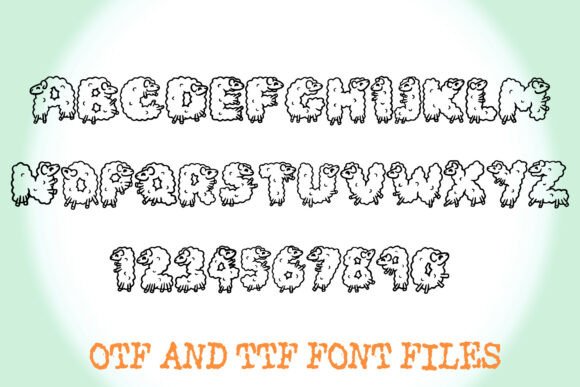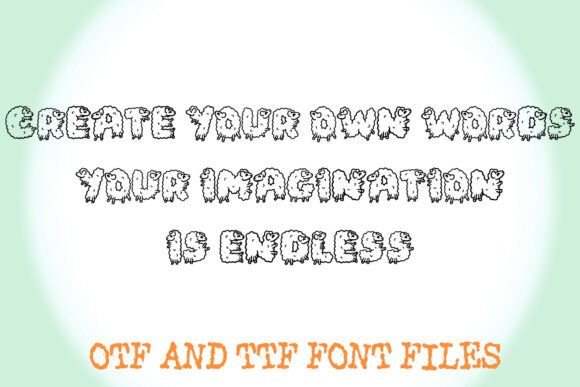
Introducing Fluffy Sheep Font: The Ultimate Delight for Designers and Crafters
Are you looking for a font that can add a touch of whimsy and playfulness to your designs? Look no further than the Fluffy Sheep Font! This delightfully imaginative display font is crafted from charming, cartoon-style sheep, making it perfect for a variety of creative projects. In this article, we’ll dive into the features and benefits of Fluffy Sheep Font, and explore how it can elevate your designs.
The Inspiration Behind Fluffy Sheep Font
The Fluffy Sheep Font is designed to bring a sense of joy and wonder to your designs. Each letter is carefully crafted from adorable, cartoon-style sheep, creating a playful and whimsical feel that’s sure to delight audiences of all ages. Whether you’re working on a children’s project, educational materials, or storybooks, this font is the perfect choice.
Key Features of Fluffy Sheep Font
- Unique Design: Each letter is crafted from charming, cartoon-style sheep, creating a one-of-a-kind font that’s sure to stand out.
- Playful and Whimsical: The font’s playful design makes it perfect for projects that require a soft and cheerful personality.
- Children’s Projects: The font is perfect for children’s projects, educational materials, storybooks, and more.
Uses for Fluffy Sheep Font
The Fluffy Sheep Font is versatile and can be used in a variety of creative projects, including:
- Children’s Books: Add a touch of whimsy to your storybooks, picture books, and early readers.
- Educational Materials: Create engaging and interactive educational materials, such as worksheets, activity sheets, and more.
- Crafting and Scrapbooking: Use the font to add a playful touch to your crafting and scrapbooking projects.
- Digital Designs: Use the font in digital designs, such as social media graphics, blog posts, and more.
Benefits of Using Fluffy Sheep Font
Using Fluffy Sheep Font in your designs offers a range of benefits, including:
- Increased Engagement: The font’s playful design is sure to capture the attention of your audience and keep them engaged.
- Unique and Memorable: The font’s unique design makes it easy to create memorable and recognizable branding.
Tips for Using Fluffy Sheep Font
Here are a few tips for getting the most out of Fluffy Sheep Font:
- Use it Sparingly: Use the font sparingly to add a touch of whimsy to your designs.
- Pair it with Other Fonts: Pair the font with other fonts to create a unique and visually appealing design.
The Fluffy Sheep Font is a delightful and imaginative display font that’s perfect for designers and crafters looking to add a touch of whimsy to their designs. With its unique design, playful feel, and multi-format support, this font is sure to become a favorite in your design arsenal. Whether you’re working on children’s projects, educational materials, or digital designs, Fluffy Sheep Font is the perfect choice.